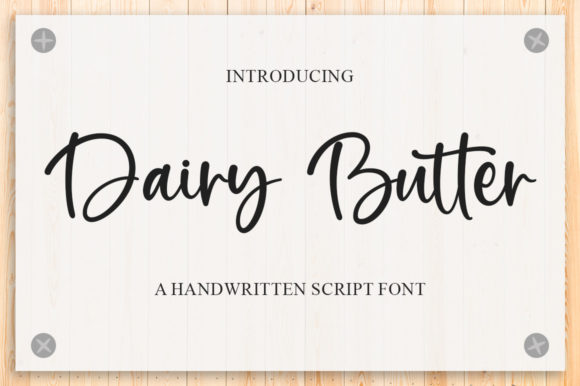
Introducing Dairy Butter Font: The Key to Unlocking Exquisite Designs!
In the realm of typography, Dairy Butter Font stands as a true masterpiece, a testament to the power of elegant penmanship. Its delicate strokes, reminiscent of a skilled calligrapher's hand, weave a tapestry of visual delight, leaving an enduring impression on the beholder.
Crafted with meticulous attention to detail, Dairy Butter Font possesses a captivating charm that is undeniable. Its characters flow effortlessly, like a river meandering through a tranquil valley, inviting you to immerse yourself in their beauty. Each letterform is a work of art, meticulously shaped to exude grace and sophistication.
The versatility of Dairy Butter Font is truly remarkable. Its ability to adapt seamlessly to a myriad of design projects is a testament to its inherent elegance. Whether you seek to create stunning logos, eye-catching social media graphics, or captivating invitations, Dairy Butter Font effortlessly rises to the challenge.
As a PUA encoded font, Dairy Butter Font grants you unparalleled access to a treasure trove of glyphs and swashes. Unleash your creativity and explore the boundless possibilities, crafting designs that exude individuality and artistic flair.
With Dairy Butter Font, the possibilities are endless. Its delicate strokes lend an air of sophistication to wedding invitations, while its playful charm adds a touch of whimsy to greeting cards. From branding projects that demand a touch of class to social media campaigns that crave attention, Dairy Butter Font delivers time and again.
So, embark on a typographic adventure with Dairy Butter Font. Let its enchanting allure captivate your audience, leaving them spellbound by the sheer beauty of your creations. Embrace the endless possibilities and unlock the gateway to design excellence with Dairy Butter Font.